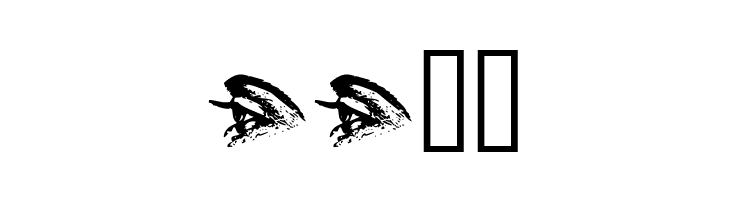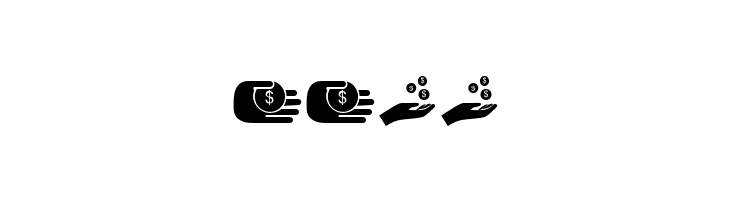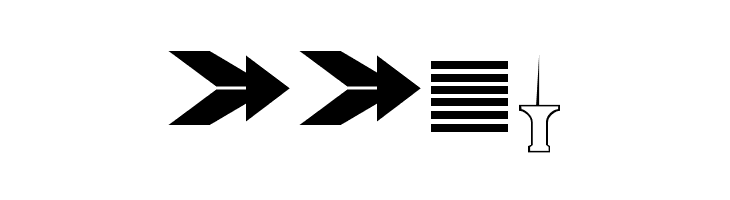
A diverse collection of detailed silhouettes depicting various scenes and characters.
Hand-drawn baby toy and animal dingbat illustrations.
A collage-inspired decorative font with pictorial glyphs and surreal imagery.
Icon-based decorative font themed around water rockets and related objects.
A collection of cowboy-themed clip art illustrations, not a traditional font.
A decorative font featuring bold, stylized pictograms and symbols.
A bold pictogram icon set of hands with various objects.
A pictogram font with folk-inspired, hand-drawn illustrations.
A versatile set of bold, clean dingbat symbols and icons.
A versatile set of bold, clear pictograms ideal for signage and instructional use.